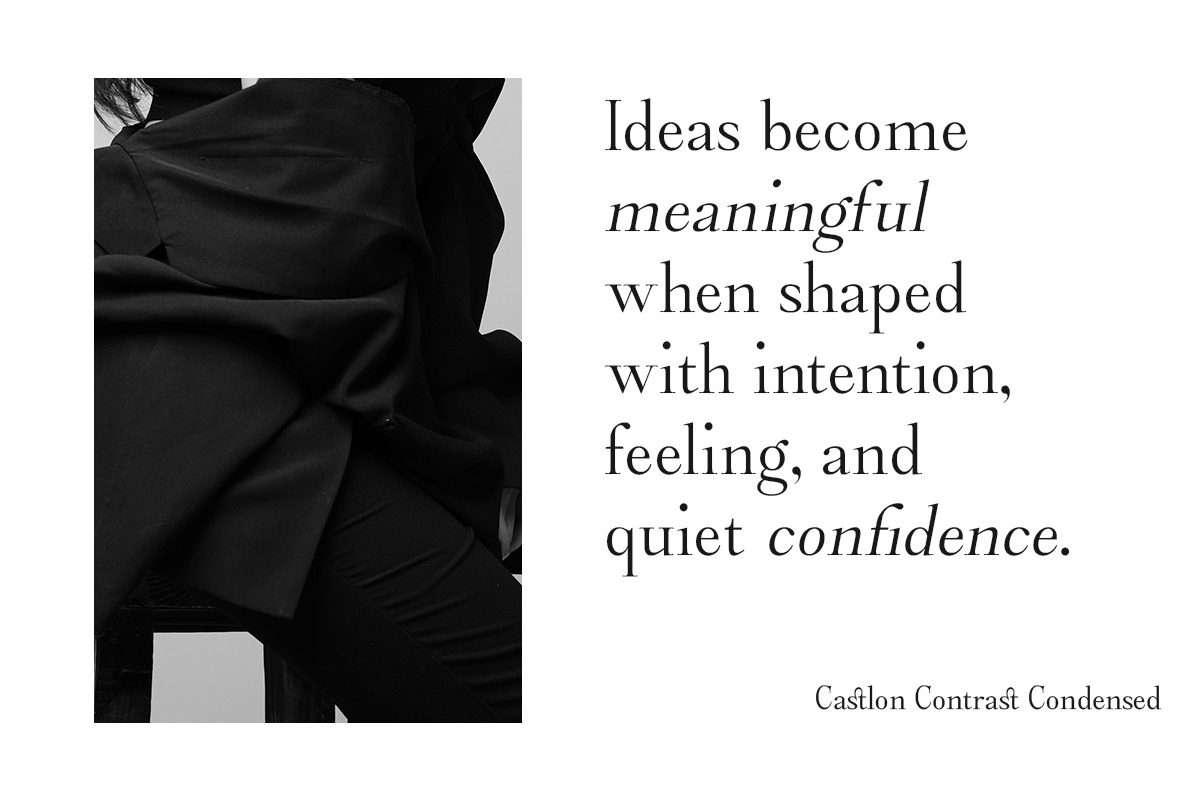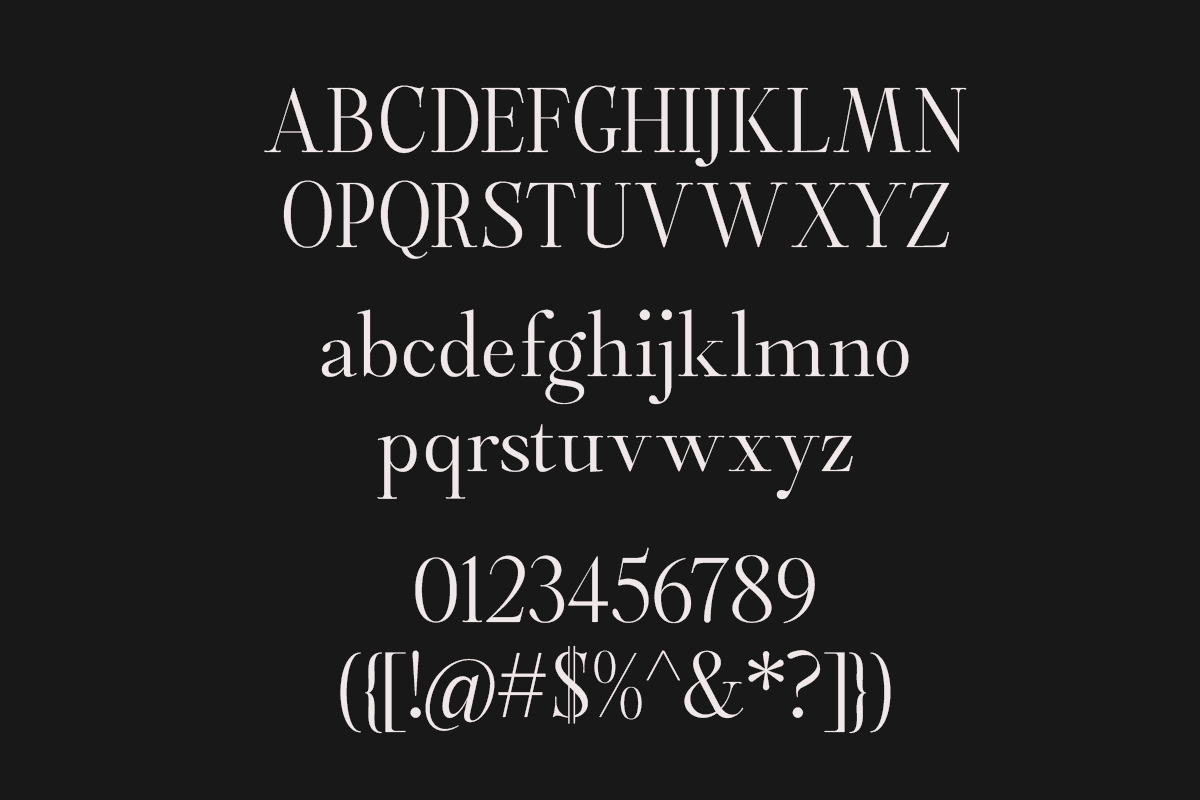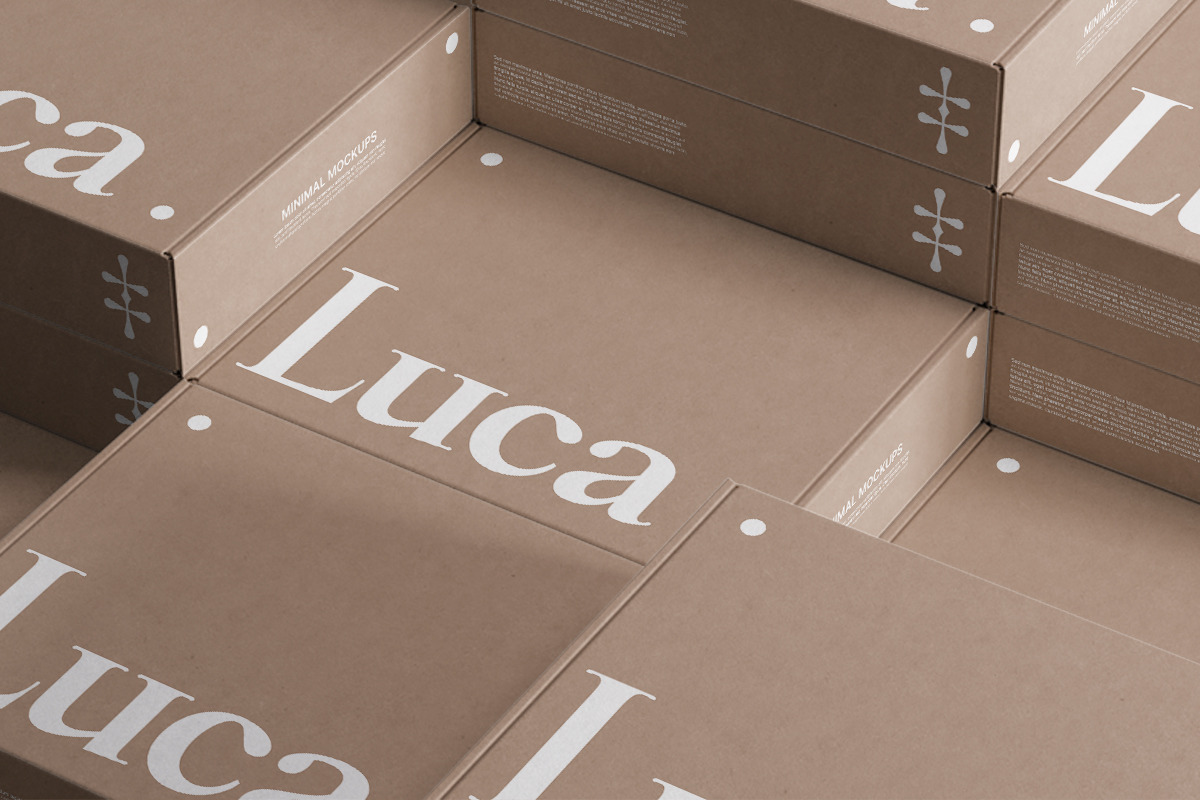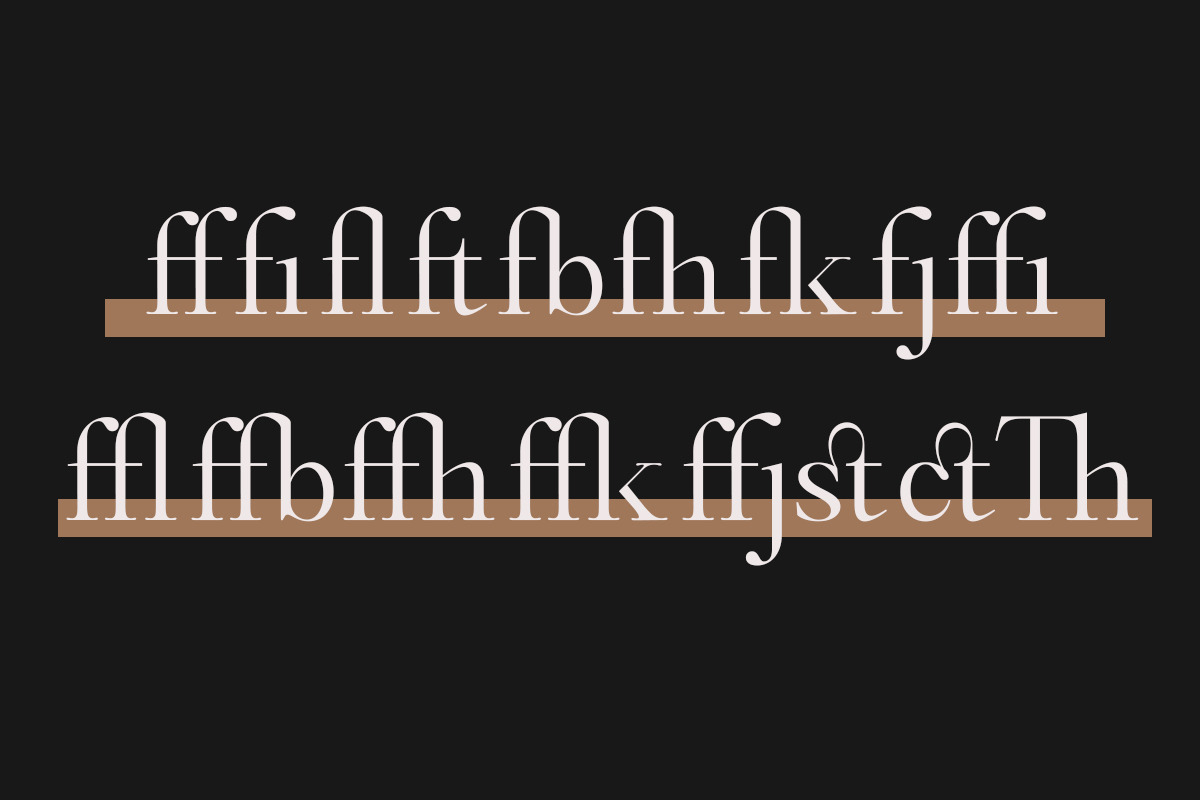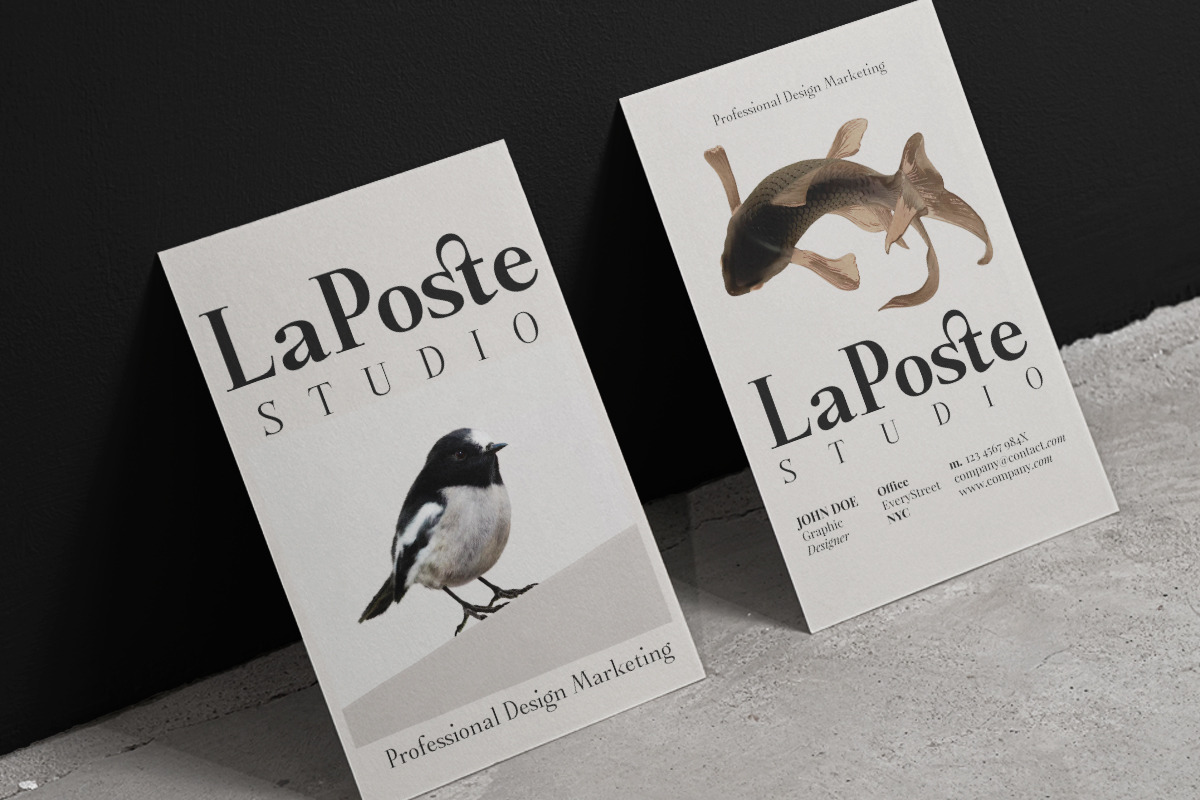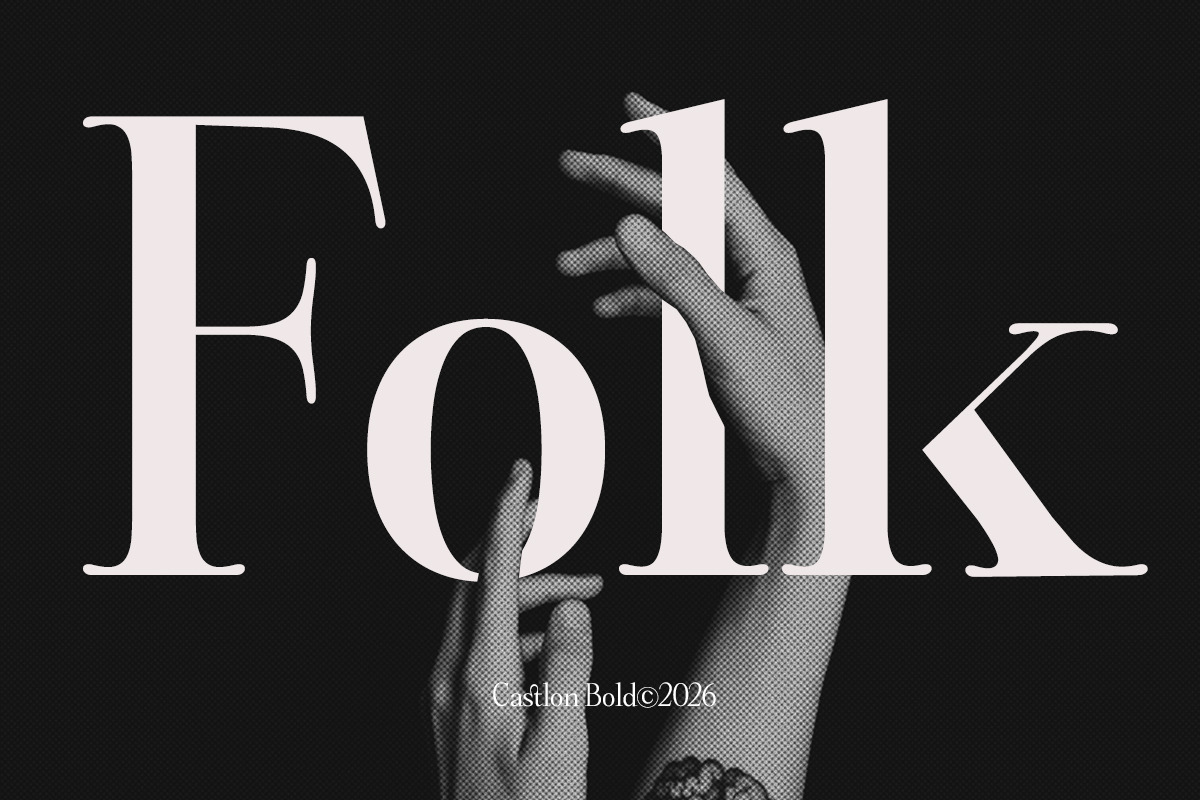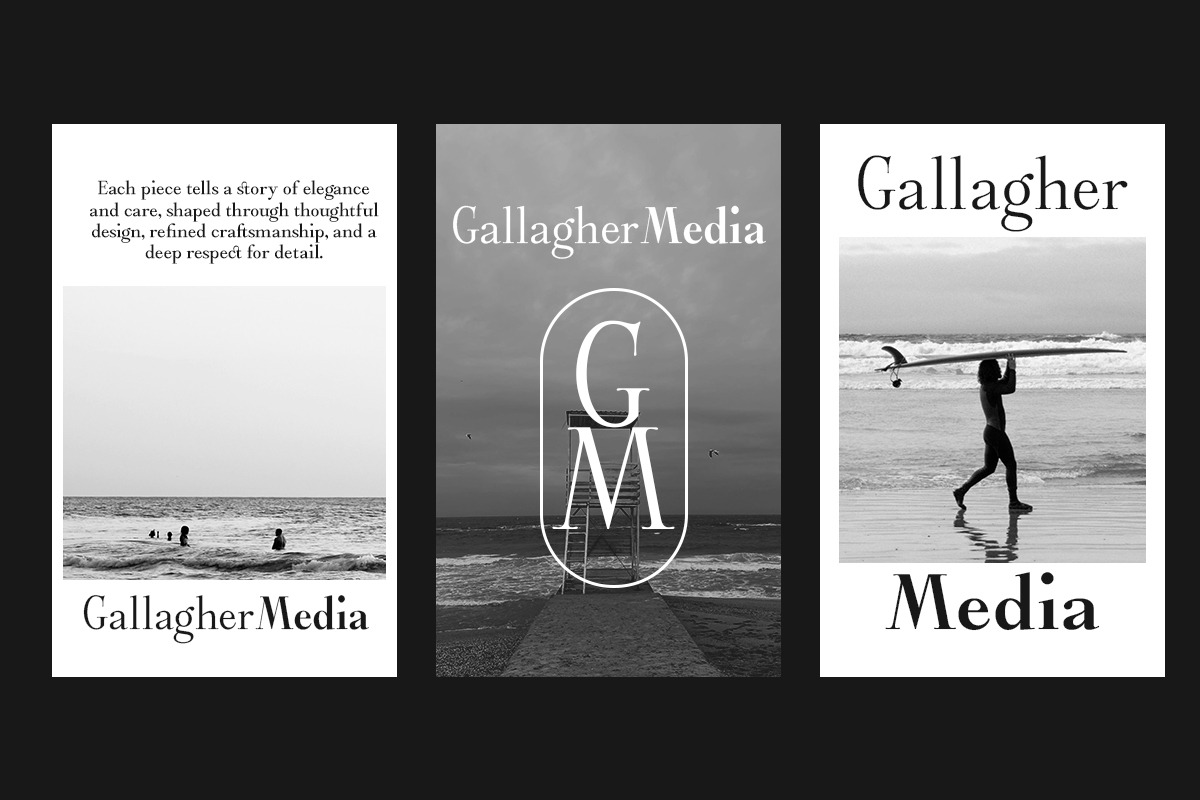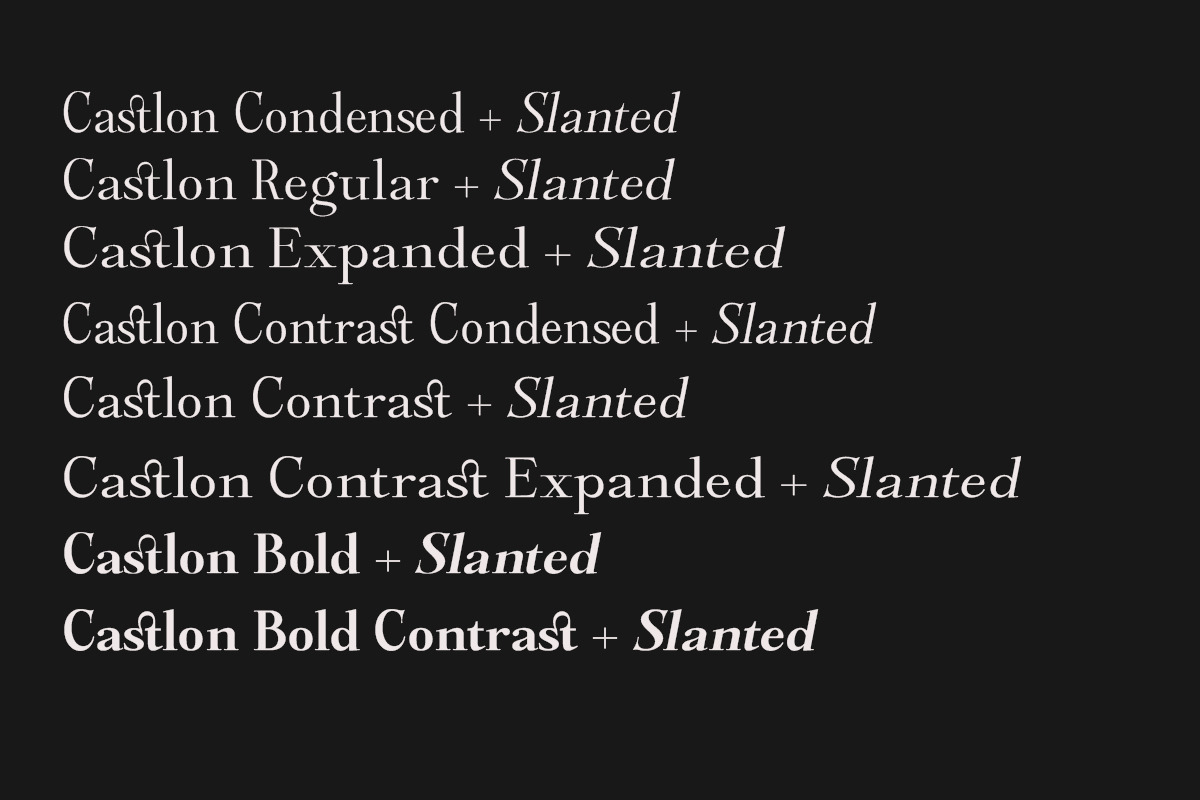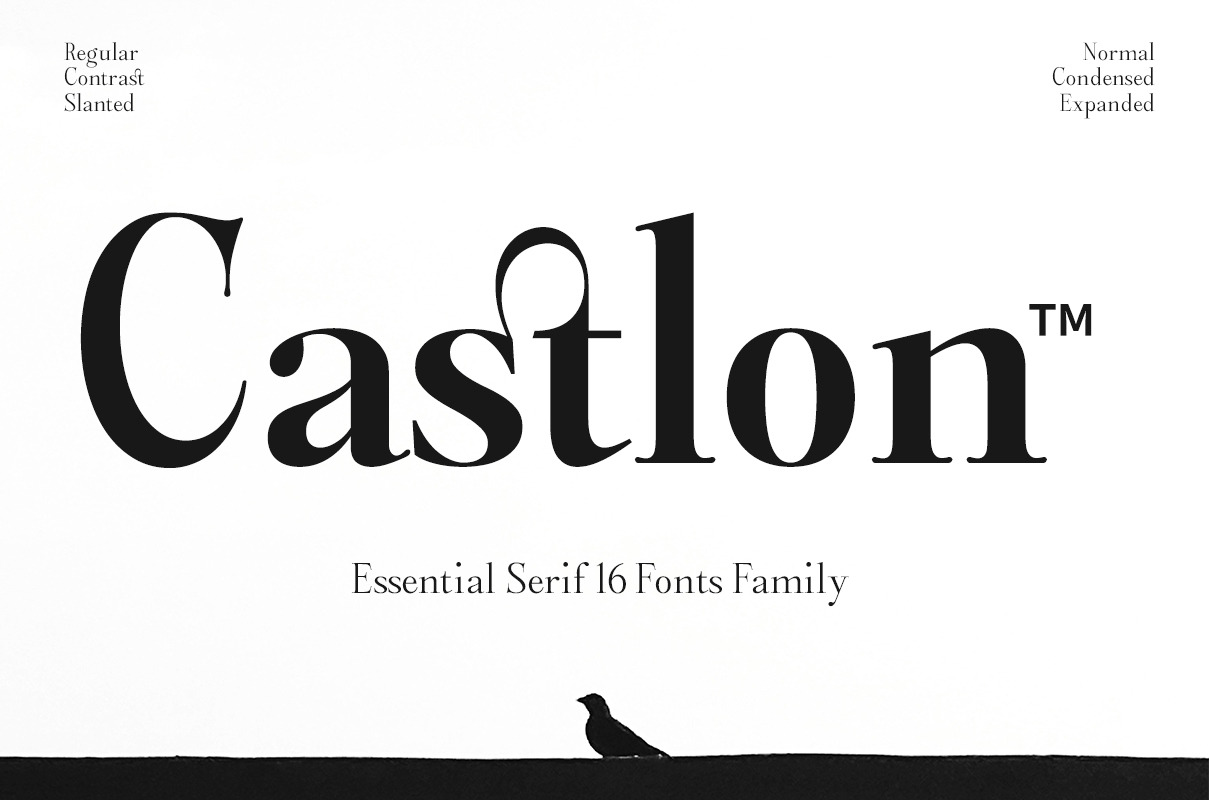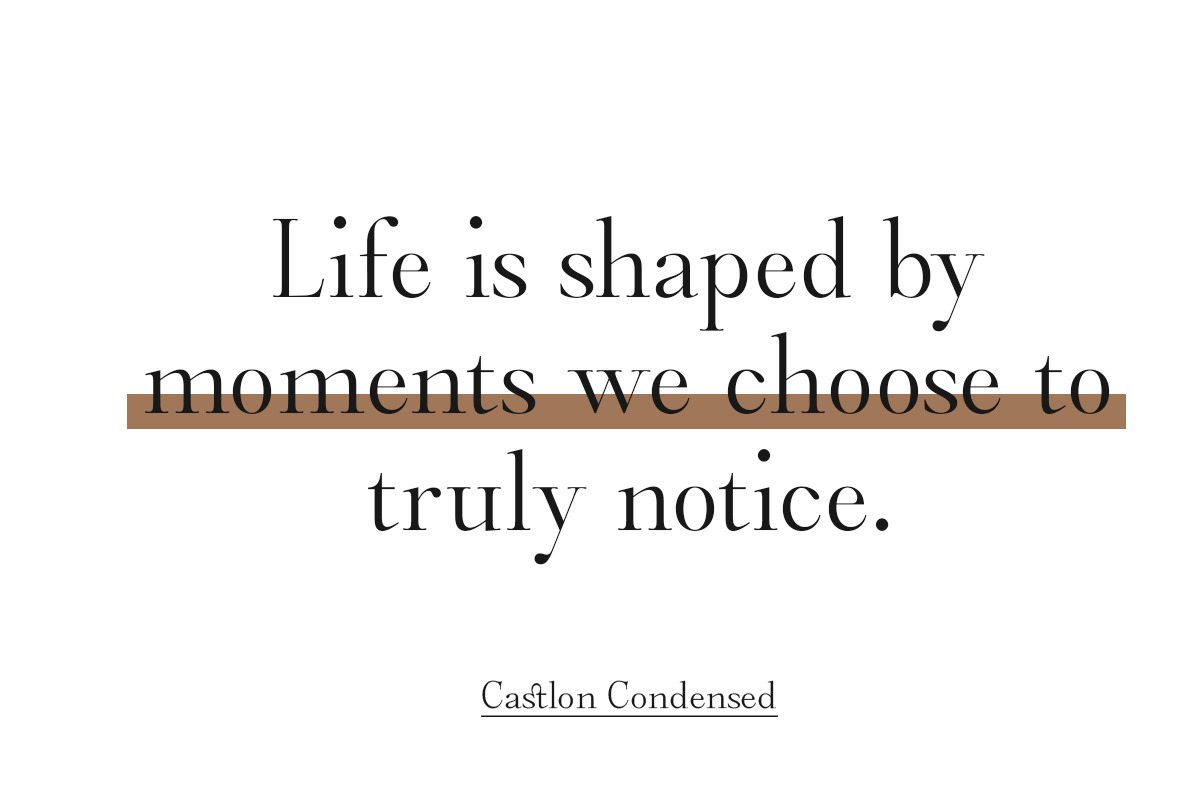
Castlon | 16 Fonts
Castlon is a modern serif typeface that reinterprets classical elegance through a contemporary lens, defined by its high contrast strokes, sculpted serifs, and fluid, slightly slanted forms. The letterforms carry a refined rhythm—sharp yet graceful—where delicate hairlines meet confident vertical stems, creating a strong visual presence without losing readability. Its distinctive curves and subtle calligraphic influence give the typeface a sense of movement and sophistication, making it especially effective for expressive headlines and editorial compositions.
As a complete type system, Castlon is built for versatility. It includes multiple weights ranging from light to bold, along with width variations such as normal, condensed, and expanded styles, allowing designers to create flexible typographic hierarchies. The family also supports slanted styles that introduce a dynamic tone without fully committing to traditional italics. Equipped with a rich character set, it features uppercase and lowercase letters, numerals, punctuation, multilingual support, and OpenType features like ligatures and stylistic alternates to enhance typographic expression.
Balanced between classic structure and modern clarity, Castlon performs seamlessly across branding, publishing, and digital design. Whether used for bold statements or refined layouts, it delivers a timeless yet distinctive voice that adapts to a wide range of visual identities.